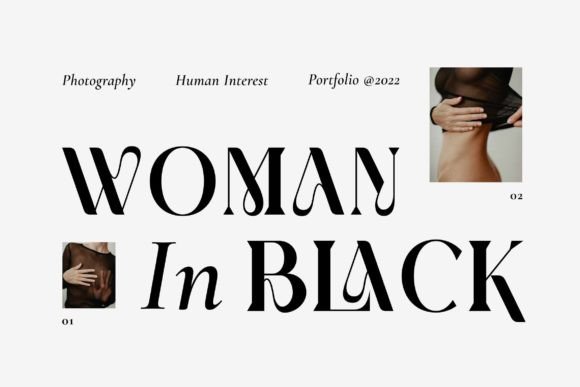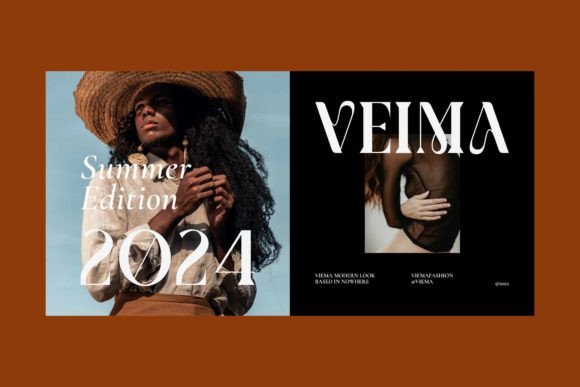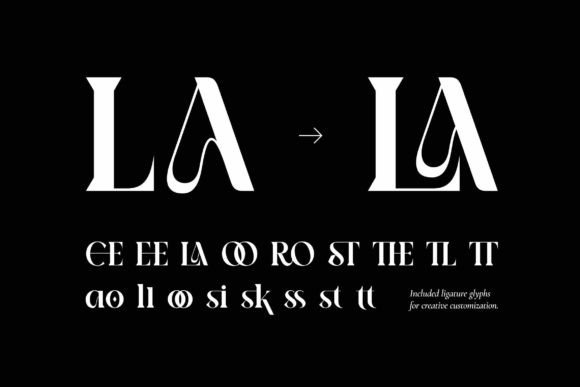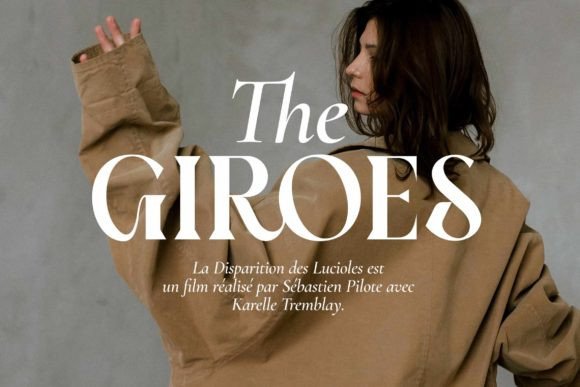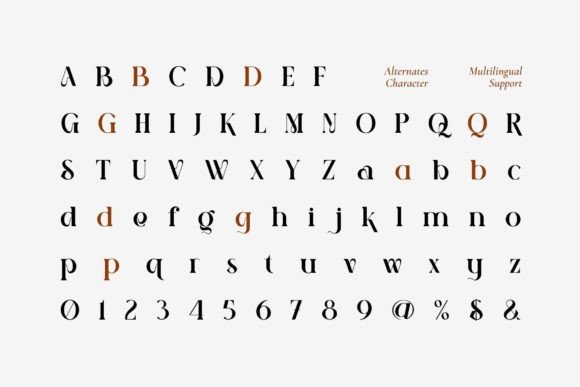
Gimela Font: Elevate Your Designs with a Modern Display Font
In the world of typography, a font can make or break a design. For designers and crafters looking to add a touch of elegance and uniqueness to their projects, Gimela Font is an excellent choice. This modern display font is not only visually stunning but also highly versatile, making it perfect for a wide range of applications.
What Makes Gimela Font Stand Out?
Gimela Font boasts a unique style that sets it apart from other fonts. Its modern design, complete with alternatives and ligatures, allows designers to create stunning logos, quotes, posts, blog posts, branding projects, magazine imagery, wedding invitations, and more. The font’s distinctive look is sure to capture attention and leave a lasting impression.
Key Features of Gimela Font
- Modern Display Font: Gimela Font is designed to make a statement. Its modern style is perfect for designers looking to add a touch of sophistication to their projects.
- Alternatives and Ligatures: The font comes with a range of alternatives and ligatures, giving designers the flexibility to experiment with different looks and styles.
- PUA Encoded: Gimela Font is PUA encoded, making it easy to access all the amazing glyphs and ligatures. This means designers can focus on creating stunning designs without the hassle of complicated font management.
- Versatile: Gimela Font is suitable for a wide range of projects, including logos, quotes, posts, blog posts, branding projects, magazine imagery, wedding invitations, and more.
Gimela Font is a dream come true for designers and crafters. Whether you’re working on a branding project, creating social media graphics, or designing wedding invitations, this font has got you covered. Its unique style and versatility make it an excellent choice for anyone looking to add a touch of elegance to their designs.
Use Gimela Font for:
- Logos: Create stunning logos that capture the essence of your brand.
- Quotes and Posts: Add a touch of elegance to your social media graphics and quotes.
- Blog Posts: Use Gimela Font to create visually appealing blog posts that stand out.
- Branding Projects: Elevate your branding projects with a font that’s both modern and sophisticated.
- Magazine Imagery: Add a touch of glamour to your magazine imagery with Gimela Font.
- Wedding Invitations: Create beautiful wedding invitations that set the tone for the big day.
Tips for Using Gimela Font
To get the most out of Gimela Font, here are a few tips:
- Experiment with Ligatures: Gimela Font comes with a range of ligatures. Experiment with different combinations to create unique looks.
- Play with Font Sizes: Gimela Font looks great in large and small sizes. Experiment with different font sizes to create visual interest.
- Pair with Other Fonts: Gimela Font pairs well with other fonts. Experiment with different combinations to create a look that’s uniquely yours.
Gimela Font is a modern display font that’s perfect for designers and crafters looking to add a touch of elegance to their projects. Its unique style, versatility, and PUA encoding make it an excellent choice for a wide range of applications. Whether you’re working on a branding project, creating social media graphics, or designing wedding invitations, Gimela Font is sure to elevate your designs.